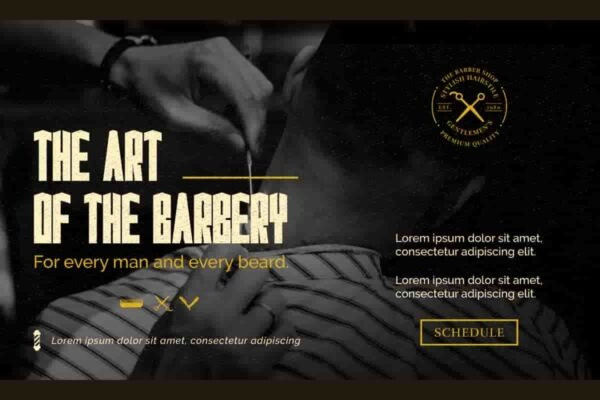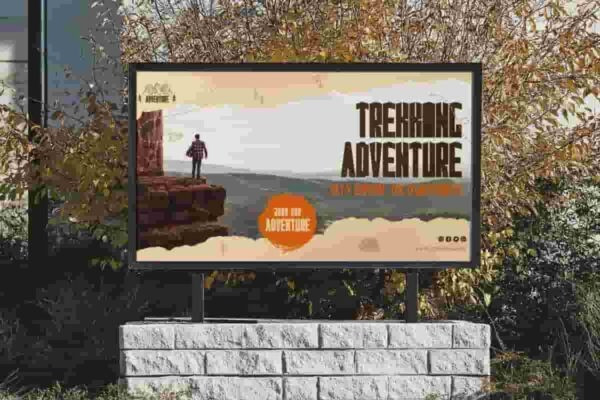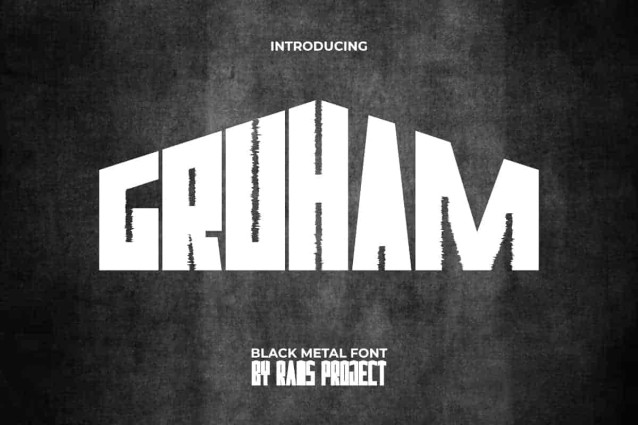
Gruham Display Font
Gruham Display Font is a Black Metal display font with a mysterious vibe by RaisProject. This display font has a strong character with unique shapes and rough sides of the letters. Try this font now for various designs, such as poster, label, custom design, stationery, signage, invitation, advertisement, website, quotes, and more!
Gruham Font comes with a full set of upper and lowercase letters, numerals, a large range of punctuation, and Alternate character to make it awesome. The font carefully crafted to create a horror look and still easy to read. This font would be perfect for industry like movie, game, fashion, event or festival, cafe, graphic designer, printing, publishing, etc.